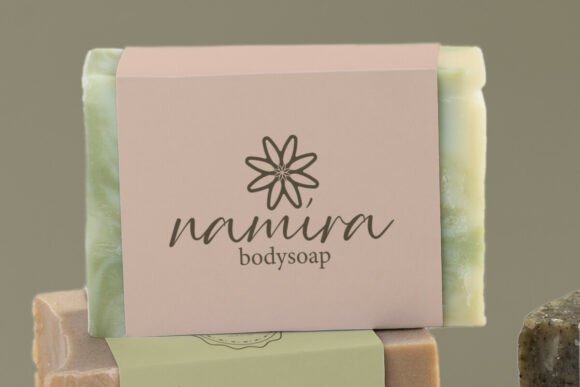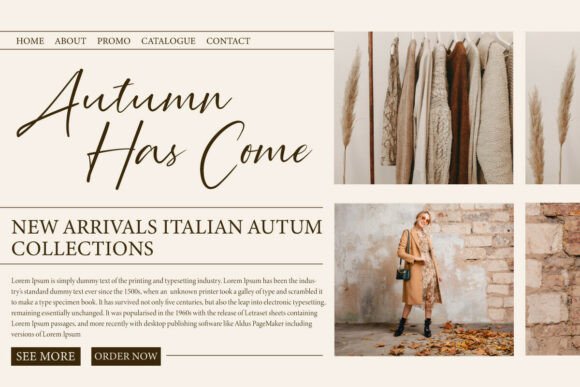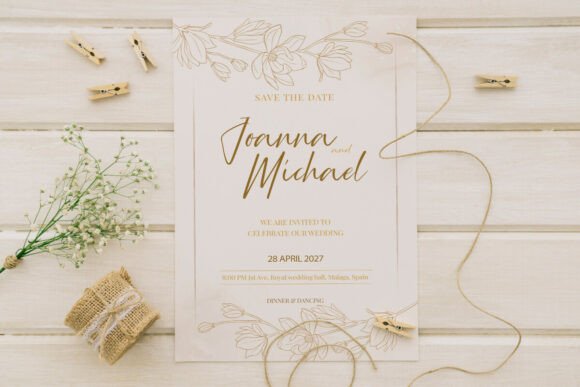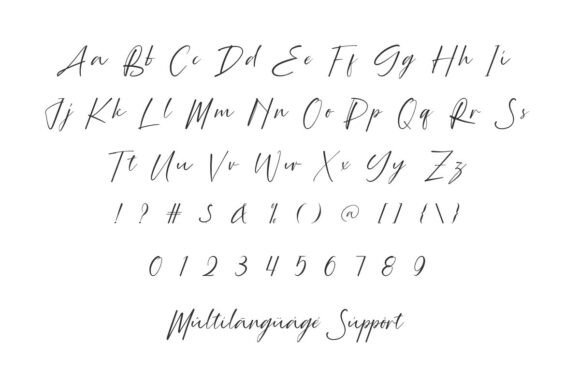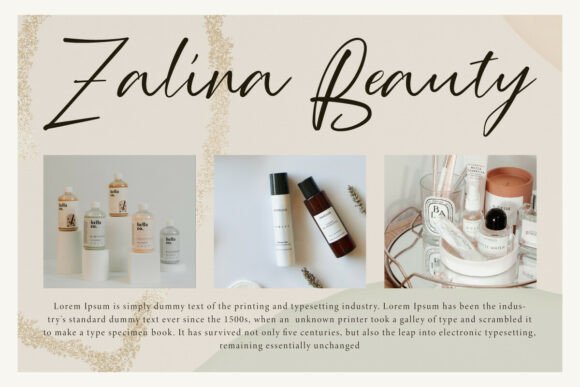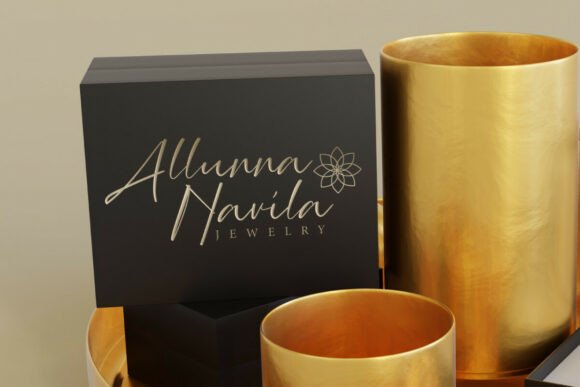
Introduction to Bayangan Rindu Font
Bayangan Rindu Font is a luxurious handwritten signature font that exudes elegance and modern sophistication.
This font radiates a stylish yet timeless charm The subtle curves and delicate letterforms make it ideal for blogs, brand logos, card design, cover, headers, invitation, jewelry, label, logo, product packaging, quotes, sticker, template, title, website, etc.